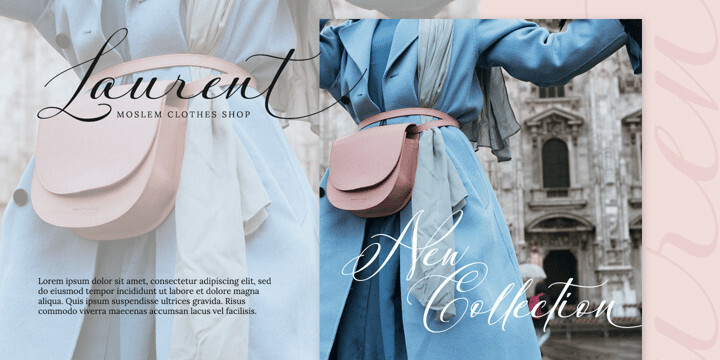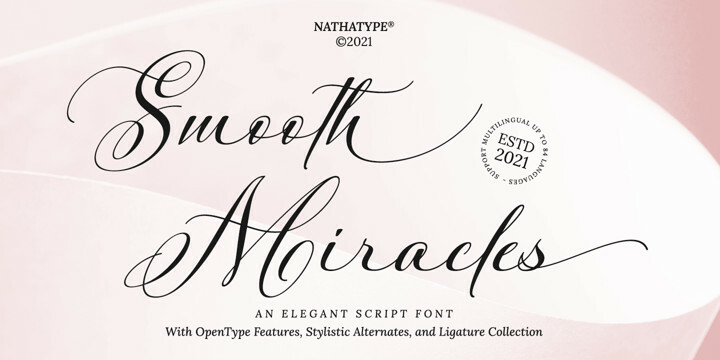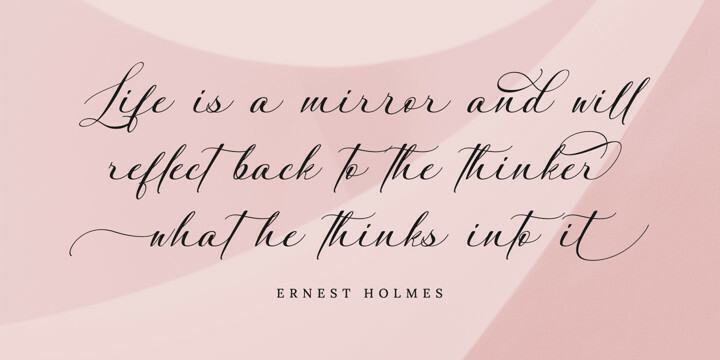
Smooth Miracles Font
Smooth Miracles FontSmooth Miracles is a font of choice for writing things that go beyond words. This font type is designed with high detail to deliver stylish elegance. So, it can be said, the character of the change is very beautiful, a kind of classical decorative copper script. Smooth Miracles presents alternative variants of most letters, binders, and many calligraphy tips, ideal for elegant labels, high-end packaging, stationery, and compositions for certain brands, beautiful titling, verses, letters and short texts, which are intended to be read only with the eyes or intended to whisper into someone’s ear.